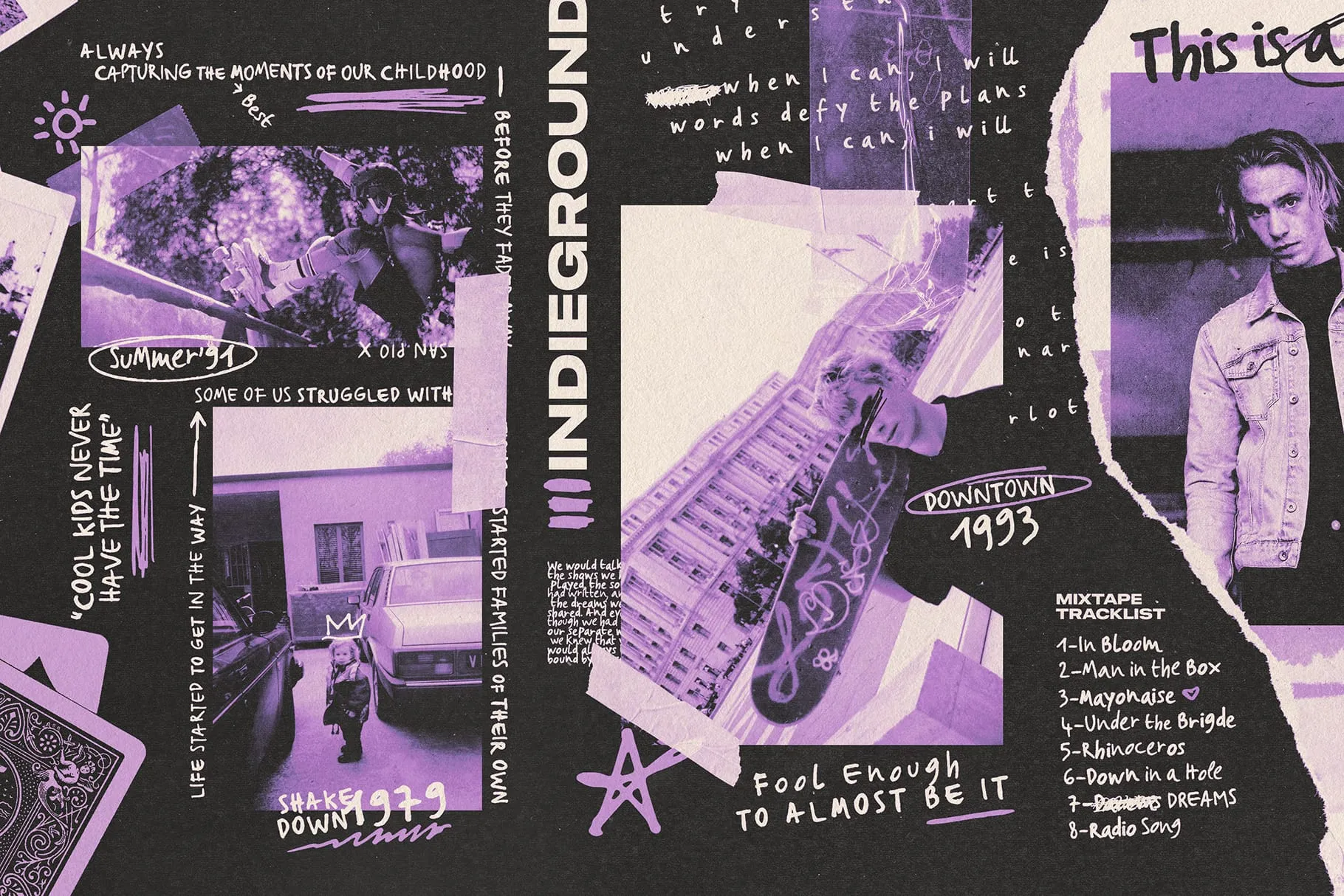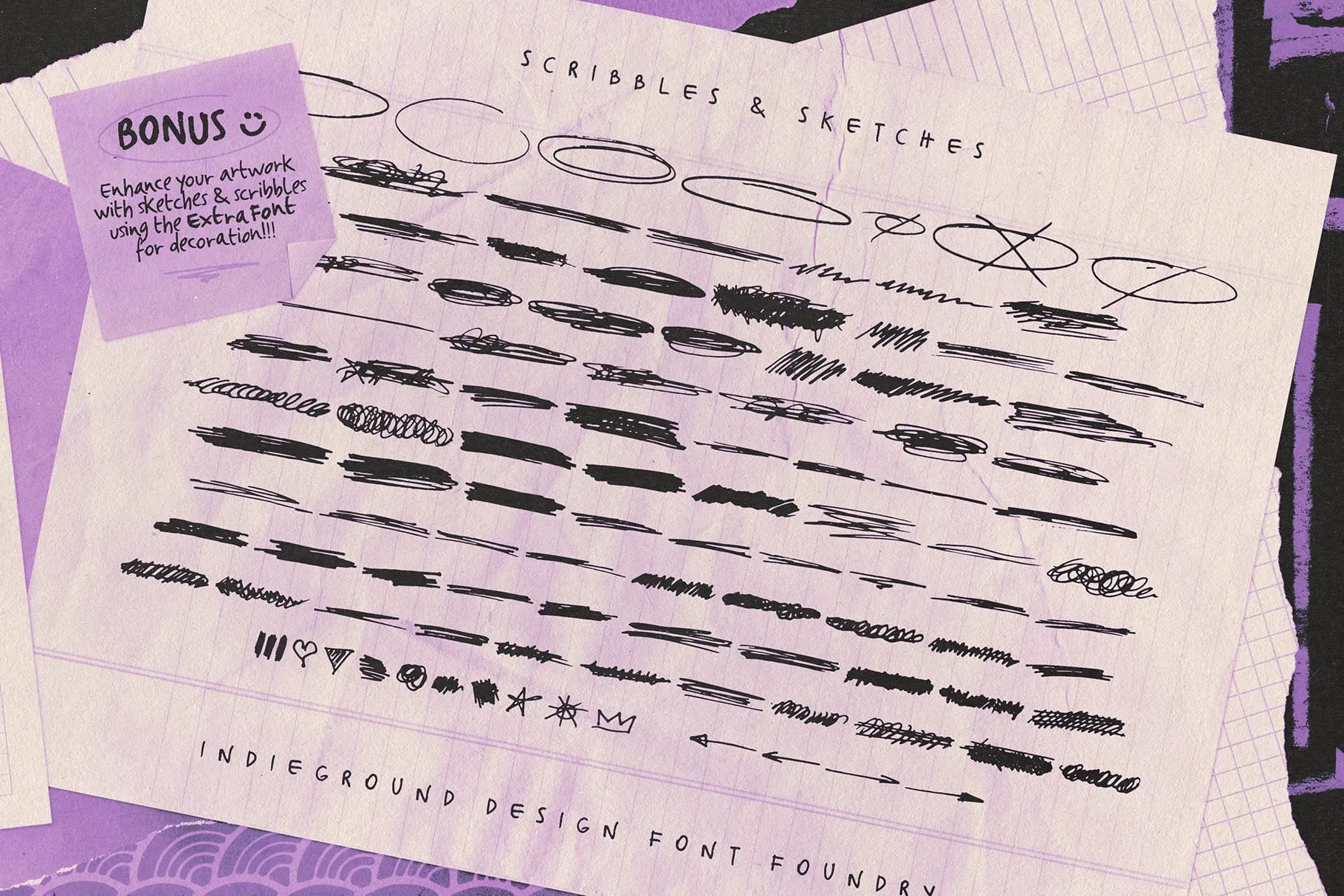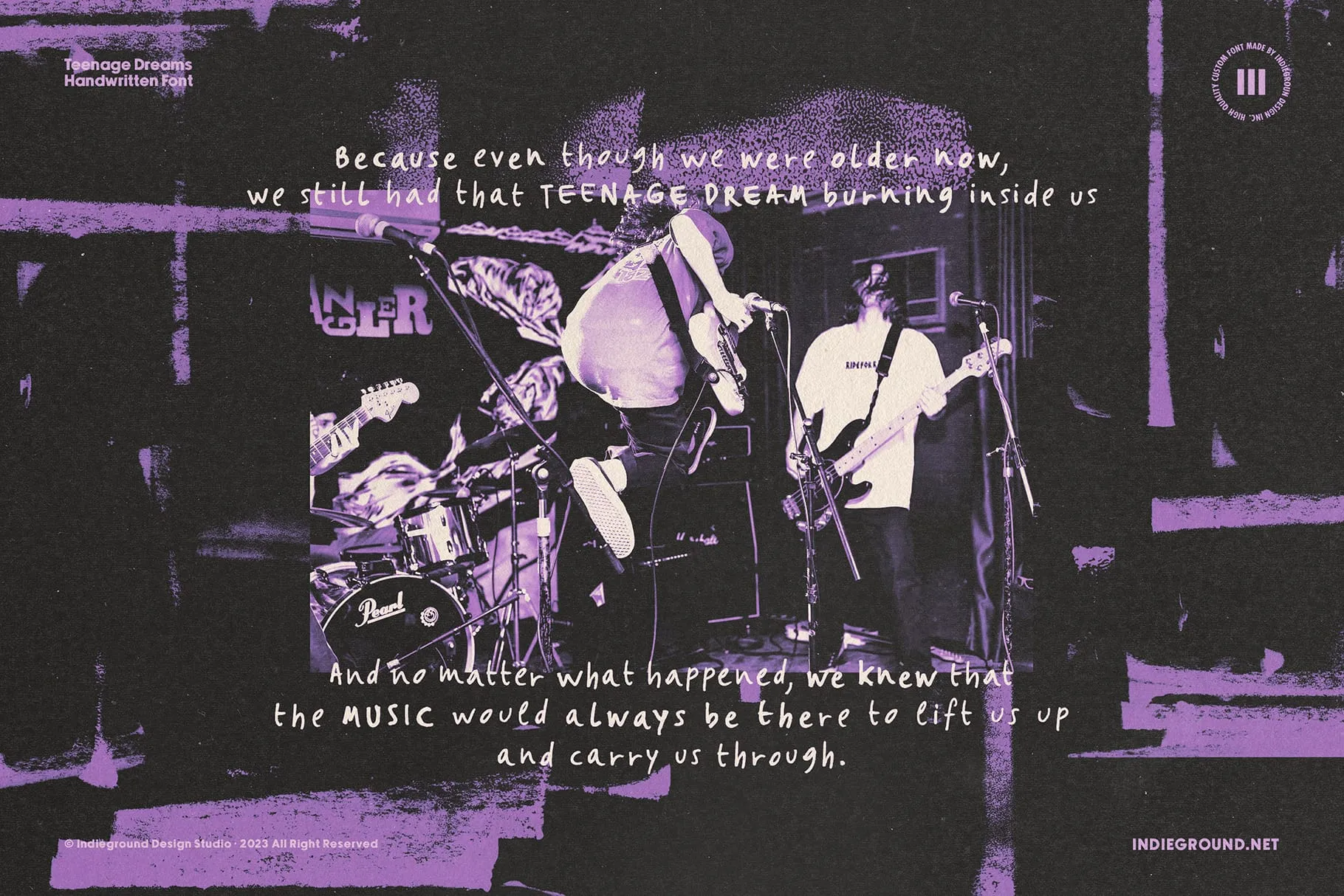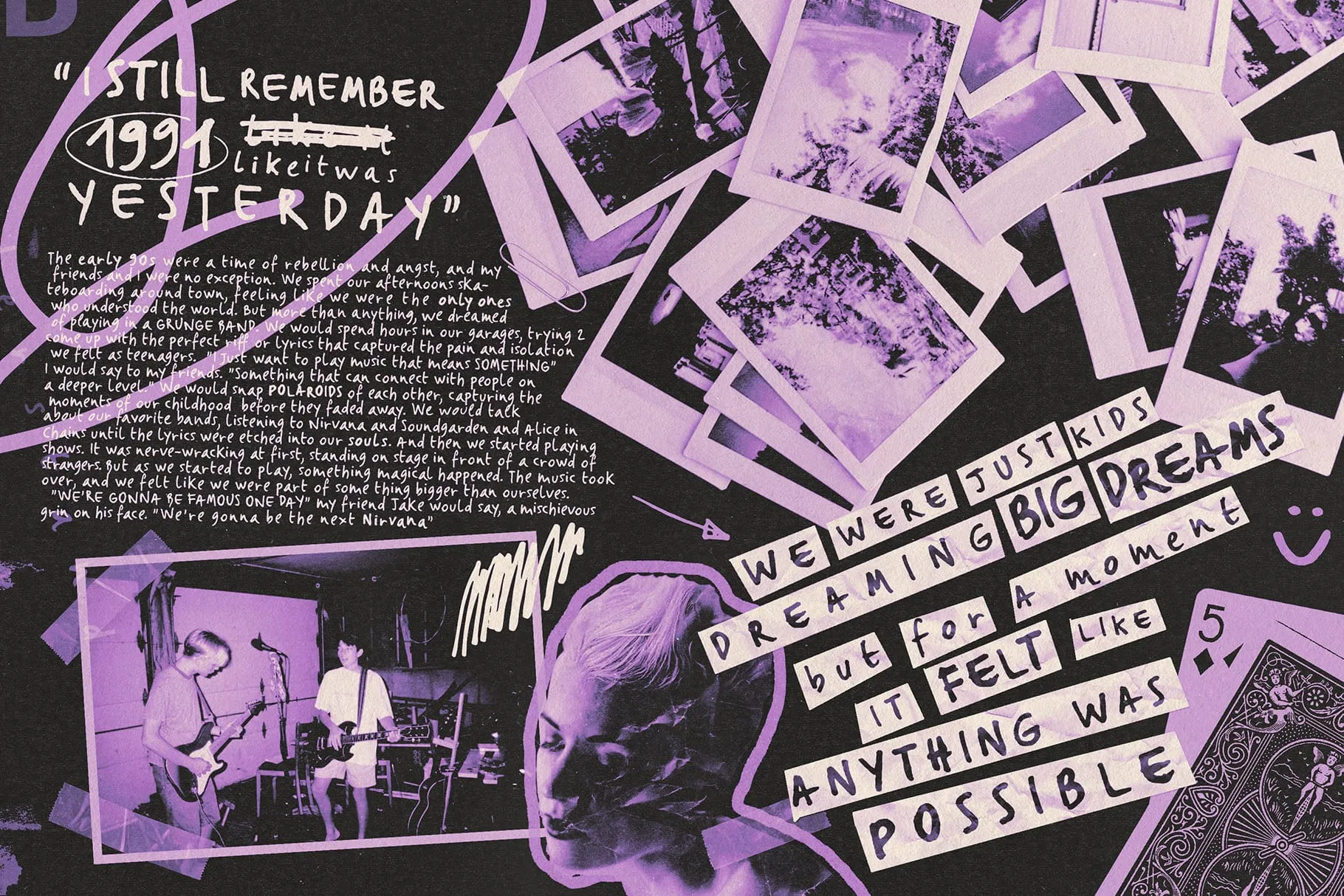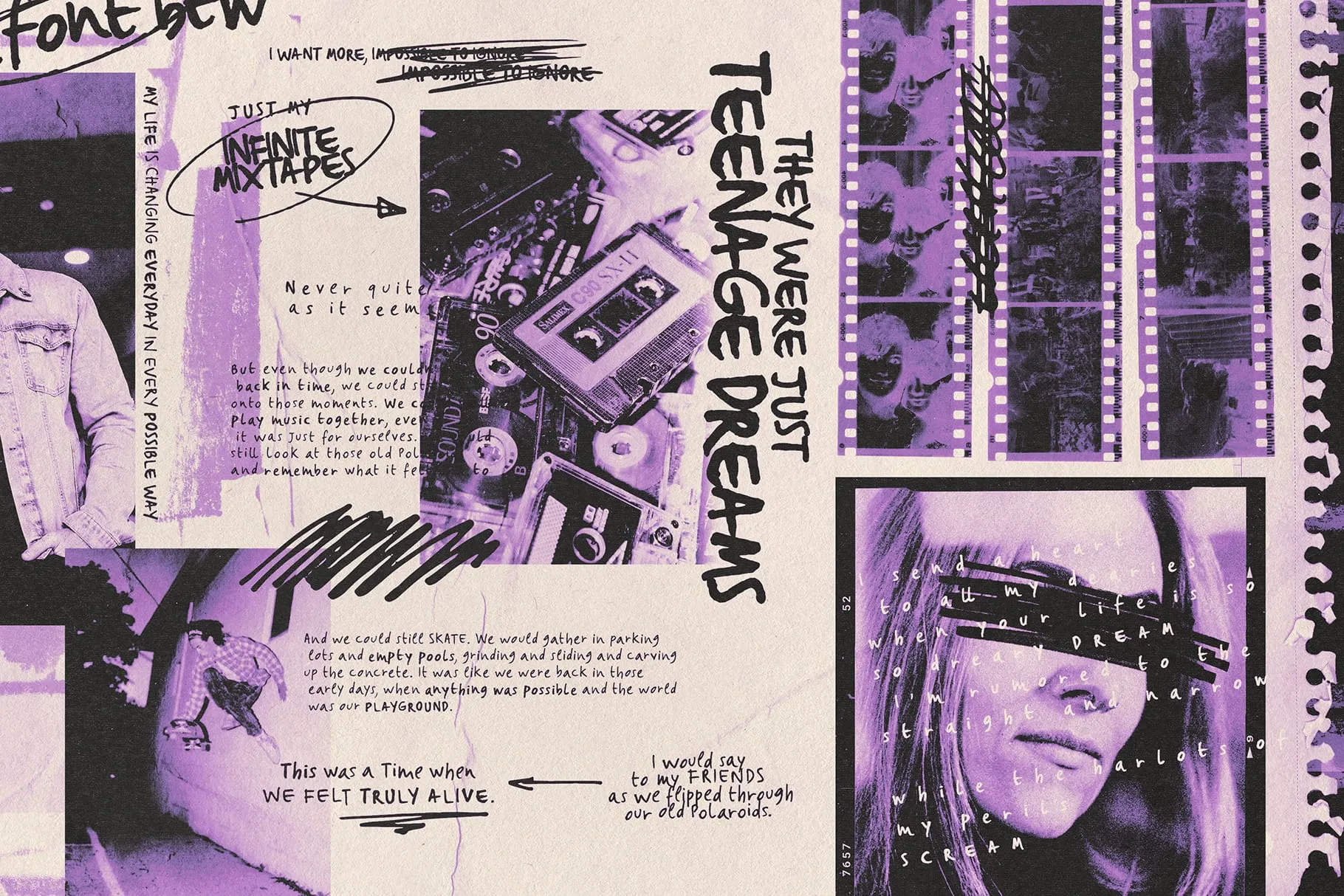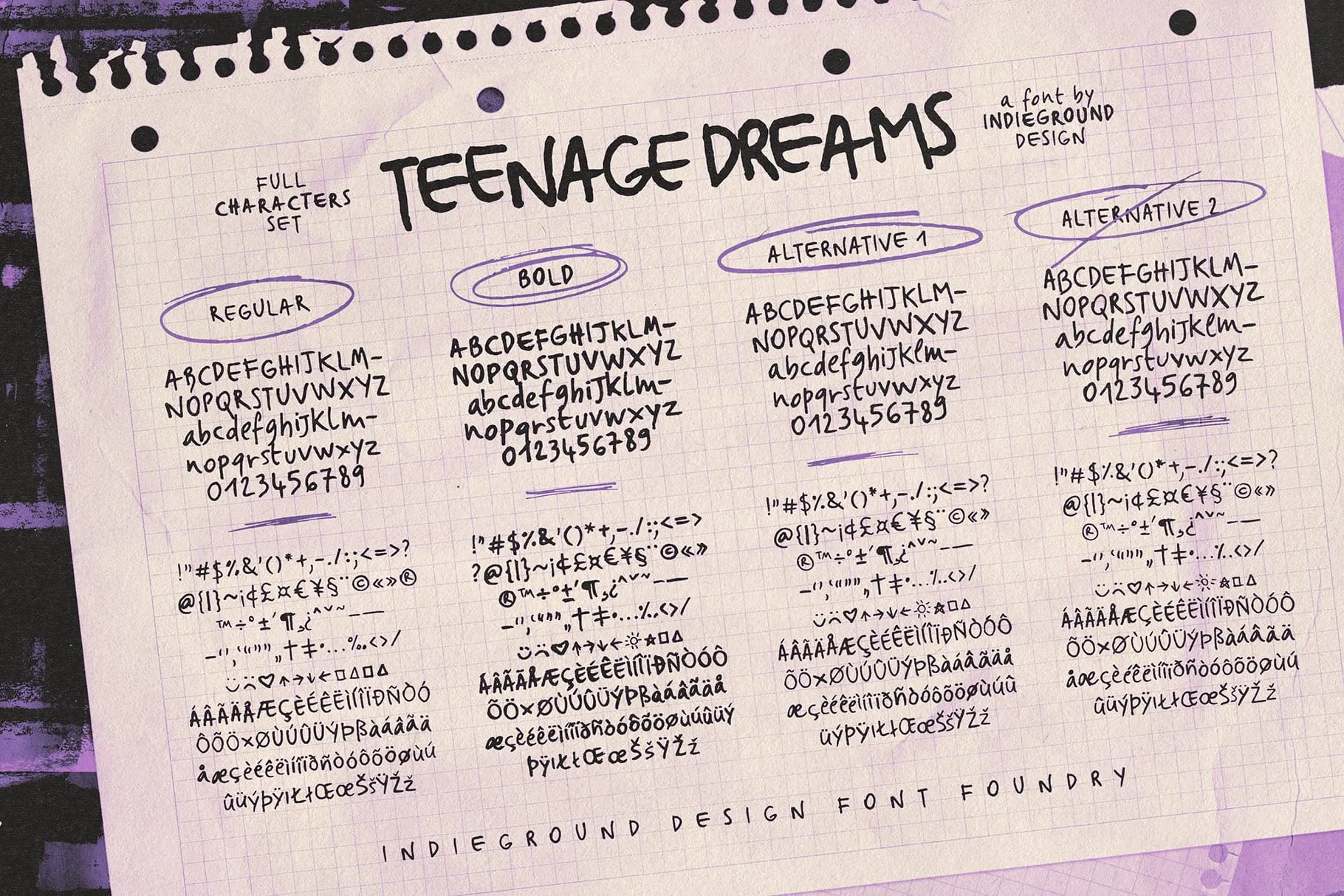
Teenage Dreams Font: A Nostalgic Handwritten Experience
Step back into the 90s with the Teenage Dreams Font, a grungy handwritten typeface that captures the essence of youthful spontaneity and creativity. Perfect for any project that aims to evoke nostalgia, this font is your go-to choice for adding a unique touch to your designs.
The Teenage Dreams Font is designed for creatives who want to infuse their work with a sense of alternative style reminiscent of the 90s. Whether you’re working on album covers, social media graphics, or personal projects, this font will transport you back to a time filled with music, discovery, and artistic expression.
- ✅ Four Unique Versions → Mix and match Regular, Bold, Alternative 1, and Alternative 2 for dynamic typography.
- ✅ Bonus Scribbles & Sketches → Enhance your designs with additional hand-drawn elements.
- ✅ Full Character Set → Each version includes 255 characters and special glyphs for versatile usage.
- ✅ Nostalgic Appeal → Perfect for creating artwork that resonates with 90s vibes and grunge aesthetics.
Why Choose This Product
The Teenage Dreams Font stands out for its authentic 90s feel, making it ideal for anyone looking to create art with a nostalgic twist. Its quirky nature allows you to evoke memories of the past, whether you’re designing for personal use or professional projects. This font not only adds style but also tells a story, making it a valuable addition to your creative toolkit.
- Regular
- Bold
- Alternative 1
- Alternative 2
Mix and match the different versions of the font to create captivating titles and graphics. Use the bonus scribbles to add an extra layer of creativity to your projects.
Teenage Dreams Font